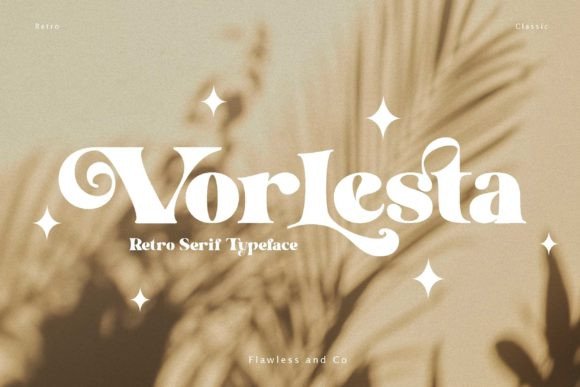
Embrace the remarkable Vorlesta Font, a breathtaking display font that exudes a captivating retro charm with a vivacious, bold spirit. Designed by the talented Flawless And Co., Vorlesta is the ultimate choice for your bohemian-inspired creations, adding a touch of nostalgia and vibrancy to your artistic endeavors.
Journey into the world of poster design, effortlessly crafting eye-catching visuals that speak volumes. Let Vorlesta's unique characters dance across your branding materials, leaving an indelible mark on your audience's minds. Transform ordinary t-shirts into wearable works of art, adorned with words and phrases that resonate with your brand's essence.
Envision business cards that transcend the ordinary, featuring Vorlesta's distinctive letterforms that command attention and leave a lasting impression. Craft logos that embody your brand's personality, utilizing Vorlesta's bold strokes to create a striking visual identity.
Unleash your creativity in the realm of photography, pairing Vorlesta's captivating curves and angles with stunning images, evoking emotions and telling stories in a visually captivating manner. Transform ordinary quotes into inspiring masterpieces, using Vorlesta's playful spirit to add a touch of whimsy and charm to your messages.
With Vorlesta, the possibilities are endless. Dive into a world of creativity, where your imagination knows no bounds. Embrace the uniqueness of this extraordinary font and watch your designs blossom into works of art.